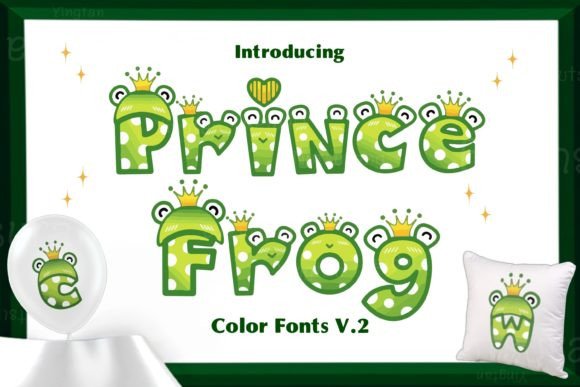
Embark on a whimsical voyage with Prince Frog Font, a colorful font brimming with charm and playfulness. Picture a font that dances across your designs like a chorus of tiny, cheerful frogs, bringing smiles and enchantment wherever it goes.
Prince Frog Font is a delightful creation by N Nakorn Creative, designed to evoke the joy and innocence of childhood. With its hand-drawn letters adorned with adorable frog faces, this font is more than just a collection of characters—it's a whimsical world waiting to be explored.
Imagine using Prince Frog Font to create invitations for your child's birthday party, designing posters for school events, or crafting greeting cards that are sure to delight recipients of all ages. Let your creativity soar as you add a touch of whimsy to your digital projects, whether it's a website, social media post, or e-book.
With Prince Frog Font, you can transform ordinary text into captivating works of art. Its playful, light-hearted nature makes it the perfect choice for any project that aims to capture the magic of childhood. Whether you're a seasoned designer or just starting, Prince Frog Font is the perfect tool to add a splash of color and personality to your work.
Join the chorus of satisfied users who have embraced Prince Frog Font's captivating charm. Let your imagination run wild and create designs that resonate with your audience, leaving a lasting impression that's as sweet and memorable as the font itself. Choose Prince Frog Font today and unlock a world of endless creative possibilities.